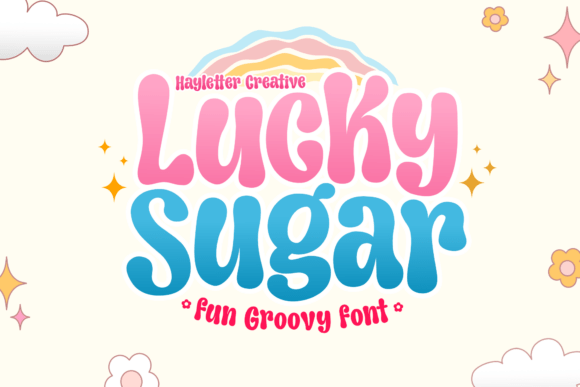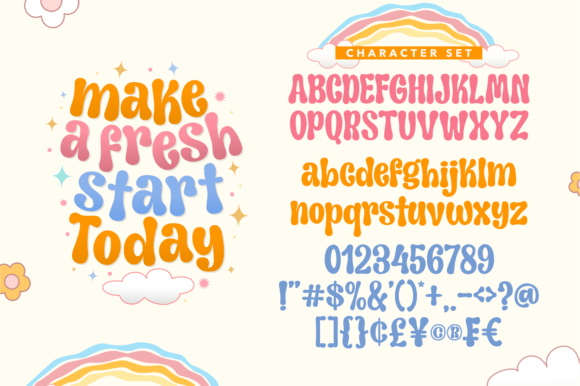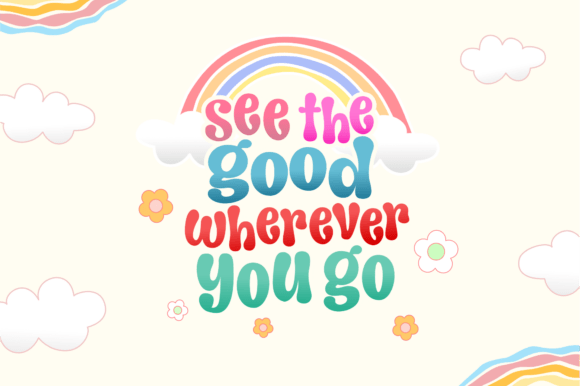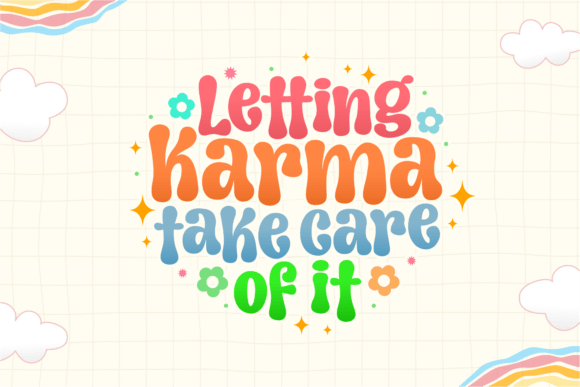
Lucky Sugar Font: Groovy Retro Display Font for Cute Designs!
About the Lucky Sugar Font
Presenting Lucky Sugar Font, a unique and stylish typeface that will make your work stand out. Lucky Sugar is a fun and groovy display font that brings a touch of retro sweetness to any design. This cute and groovy font features a charming, retro-inspired style that’s ideal for posters, invitations, and anything that needs a dose of fun and nostalgia.
Lucky Sugar’s playful energy makes it perfect for headlines, logos for sweet treat brands, packaging for children’s products, and eye-catching posters. It’s less suitable for body text or UI elements where high readability is crucial; its retro styling can hinder legibility in smaller sizes or extended passages.
Consider pairing Lucky Sugar with a clean sans-serif like Open Sans for a balanced contrast, or a more geometric sans-serif for a modern feel. A classic serif font such as Garamond could add a touch of sophistication, creating interesting visual tension.
The font’s overall personality is undeniably cheerful and nostalgic, suggesting a brand focused on fun, youthfulness, or retro aesthetics. Avoid pairing it with overly serious or formal fonts; its inherent playfulness requires a complementary partner.
Lucky Sugar Font Usage Examples
Lucky Sugar Font Example